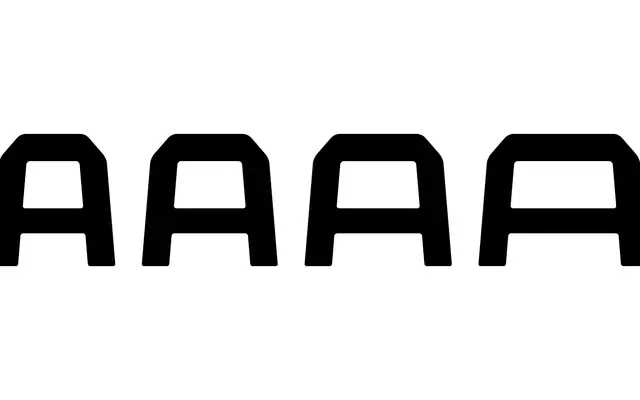
An all-caps geometric display family in four widths, built around straight forms joined by 45-degree rounded angles and inspired by cyberpunk and dystopian science fiction aesthetics.
Winkell is a futuristic all-caps display family spanning four widths from Regular to Super Wide, each available in Regular and Bold with matching italics, giving sixteen styles in total. Its letterforms are constructed from straight strokes meeting at 45-degree rounded angles, producing a clean, angular rhythm suited to titles, logotypes and speculative-fiction art direction. Extended Latin character support broadens its usability across multiple European languages.
An all-caps display family built on straight strokes connected by 45-degree rounded angles, designed explicitly for futuristic and sci-fi aesthetic contexts rather than text use.